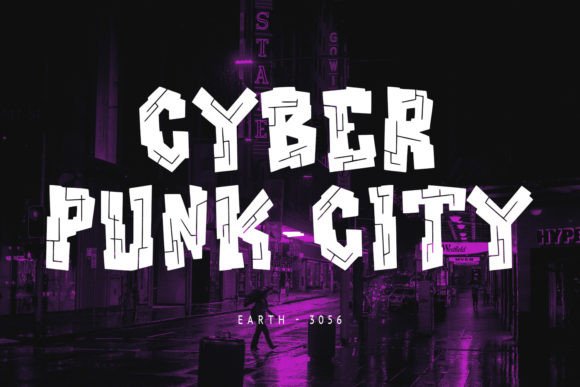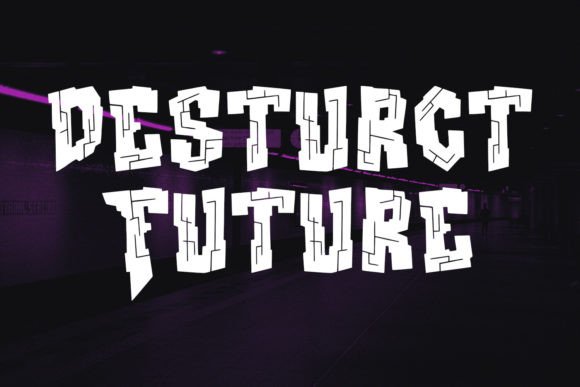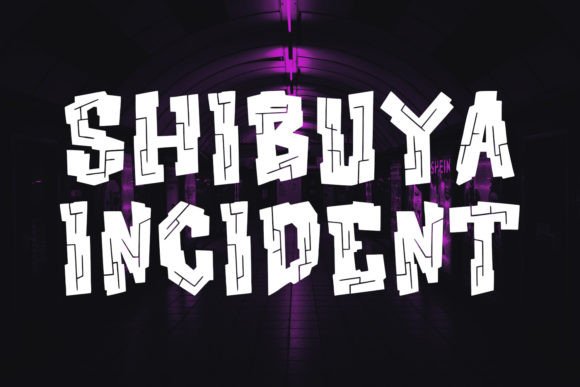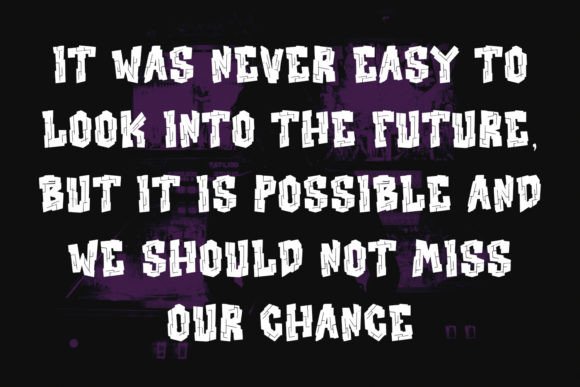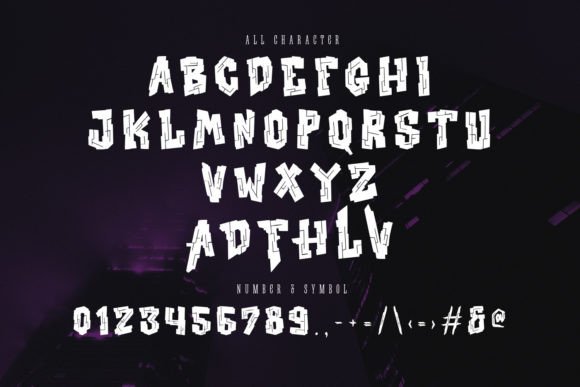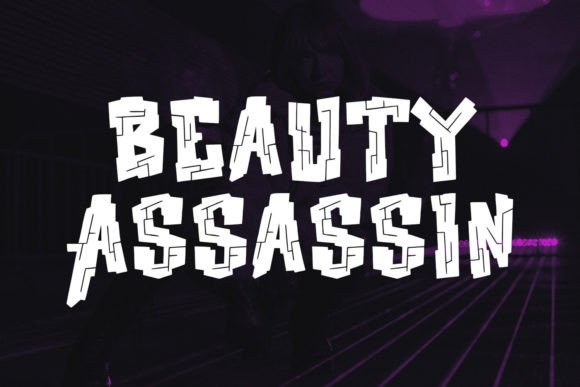
Introducing Fyltron Amex: The Ultimate Techno Display Typeface
Are you tired of using the same old fonts for your design projects? Look no further! Fyltron Amex is here to revolutionize your creative work with its unique blend of heavy strokes, fun characters, and ligatures. This techno display typeface is perfect for designers and crafters looking to add a touch of excitement to their designs.
What Makes Fyltron Amex Special?
Fyltron Amex is not just another font; it’s an experience. With its heavy stroke and fun character design, it’s sure to grab attention and make your work stand out. The addition of ligatures adds a touch of sophistication, making it perfect for a wide range of design projects. Whether you’re working on a logo, social media graphics, movie titles, or book covers, Fyltron Amex is the perfect choice.
Multilingual Support
In today’s globalized world, it’s essential to have a font that can support multiple languages. Fyltron Amex understands this need and offers multilingual support for over 100 languages. This means you can use Fyltron Amex for projects that require text in different languages, without worrying about compatibility issues.
Fyltron Amex is an incredibly versatile font that can be used for a wide range of design projects. Here are some ideas to get you started:
- Logo Design: Create a stunning logo for your brand with Fyltron Amex’s bold and attention-grabbing design.
- Social Media: Use Fyltron Amex to create engaging social media graphics that will make your followers stop scrolling.
- Movie Titles: Add a touch of glamour to your movie titles with Fyltron Amex’s cinematic feel.
- Book Titles: Make your book covers stand out with Fyltron Amex’s unique and creative design.
- Short and Long Text: Fyltron Amex is perfect for both short and long text, making it an excellent choice for body text, headings, and titles.
Pairing Options
Fyltron Amex is a versatile font that can be paired with a variety of font styles to create a stunning visual effect. Here are some pairing options to consider:
- Script Fonts: Pair Fyltron Amex with a script font for a beautiful contrast between techno and elegant designs.
- Serif Fonts: Combine Fyltron Amex with a serif font for a classic and sophisticated look.
Why Choose Fyltron Amex?
With so many fonts available, why choose Fyltron Amex? Here are a few reasons:
- Unique Design: Fyltron Amex offers a unique design that will make your work stand out.
- Multilingual Support: Fyltron Amex supports over 100 languages, making it perfect for global projects.
- Versatility: Fyltron Amex can be used for a wide range of design projects, from logos to book covers.